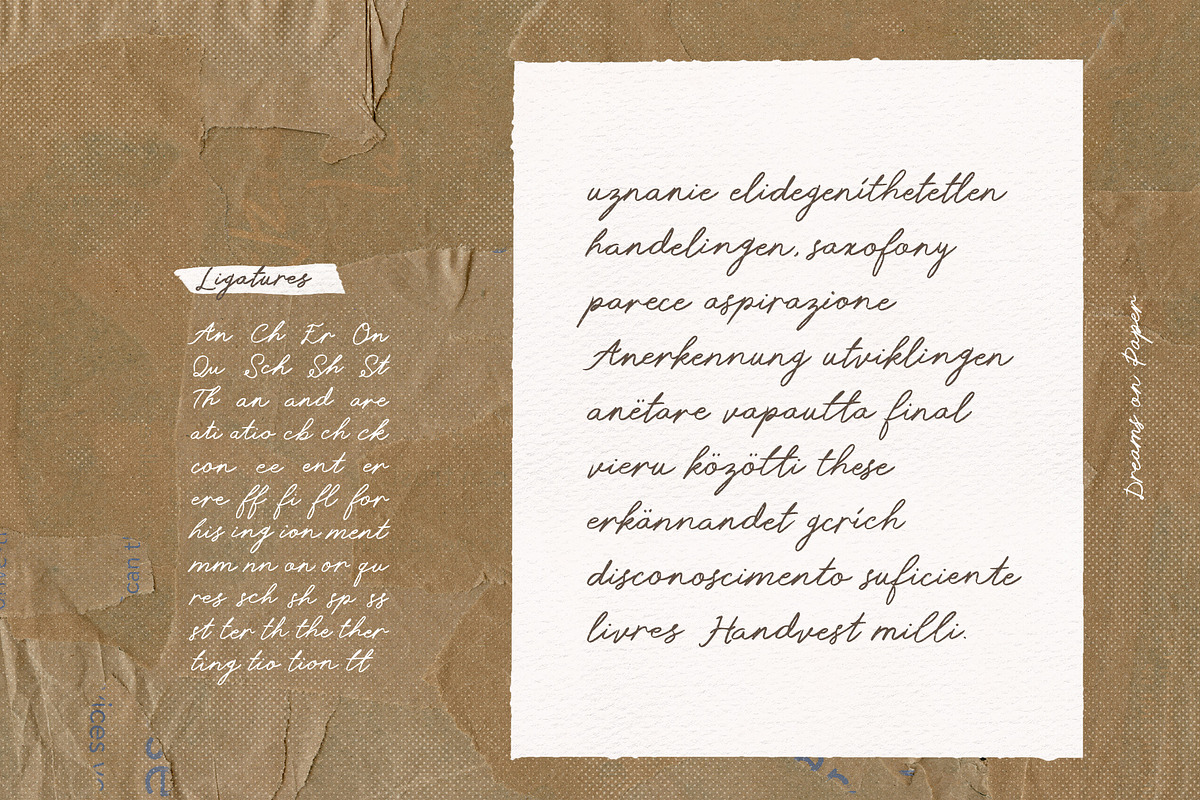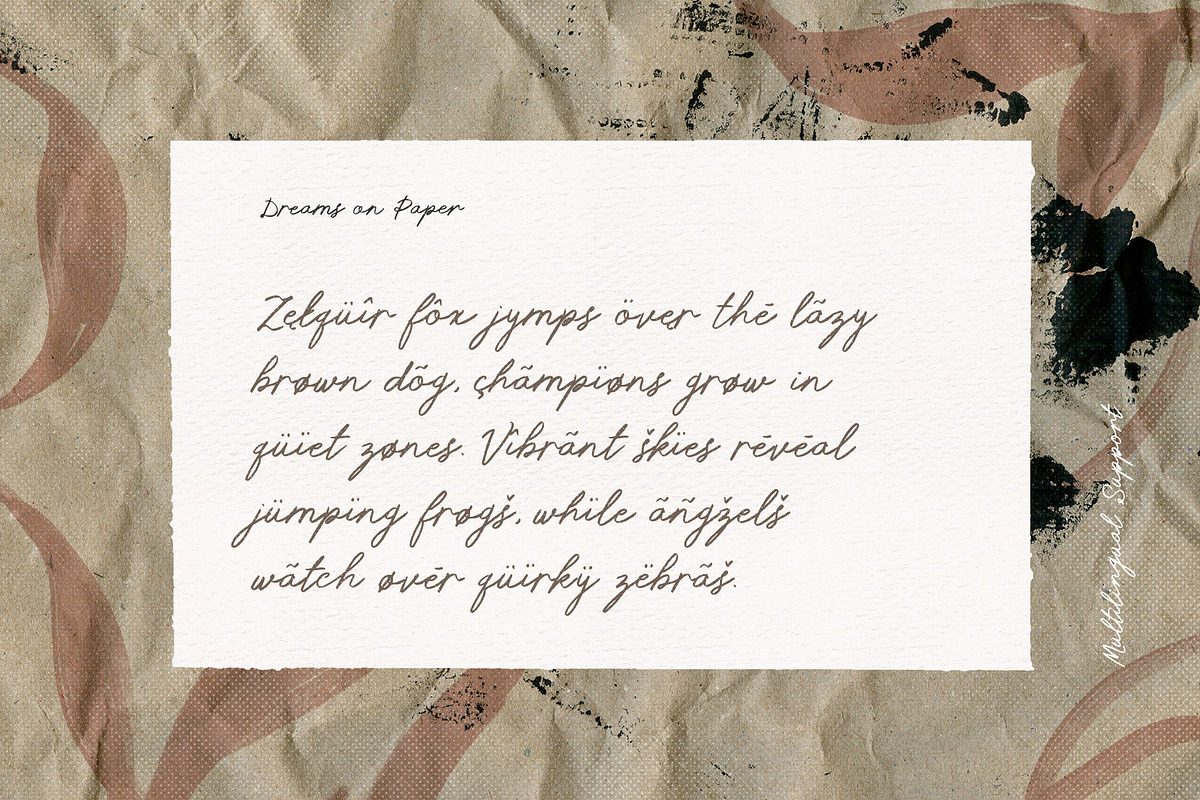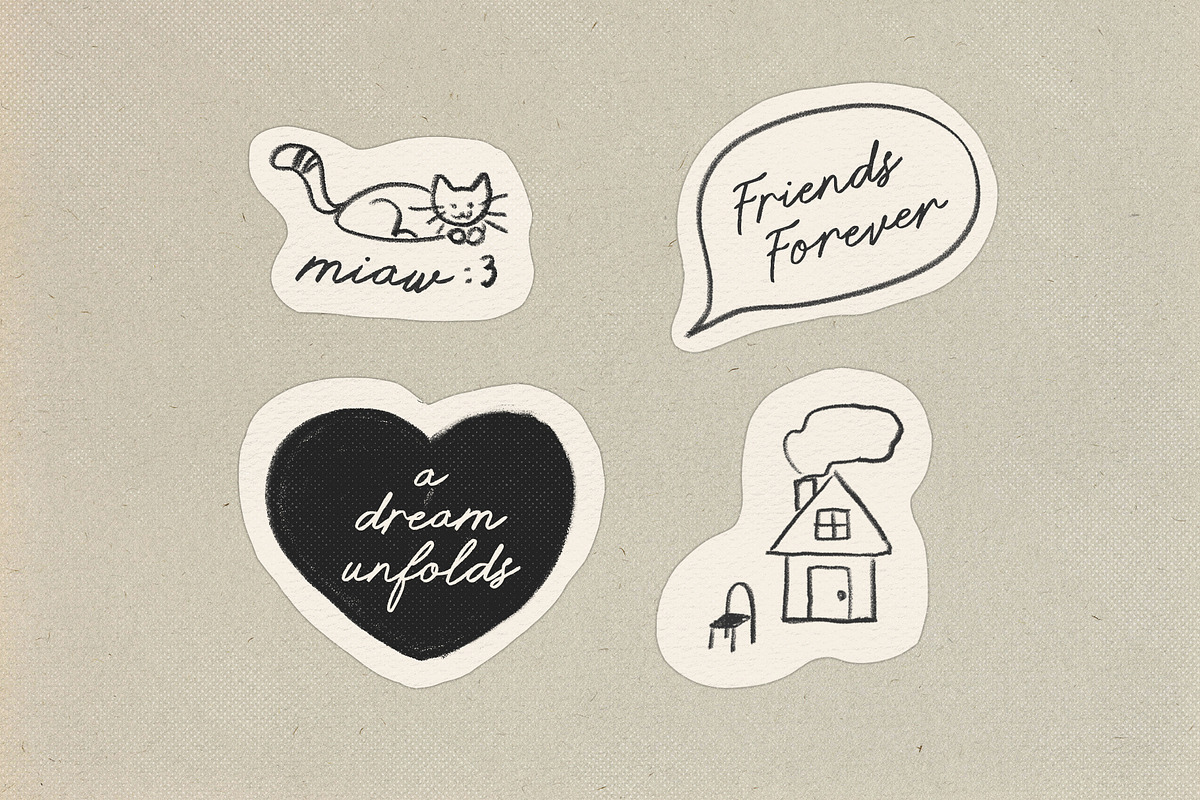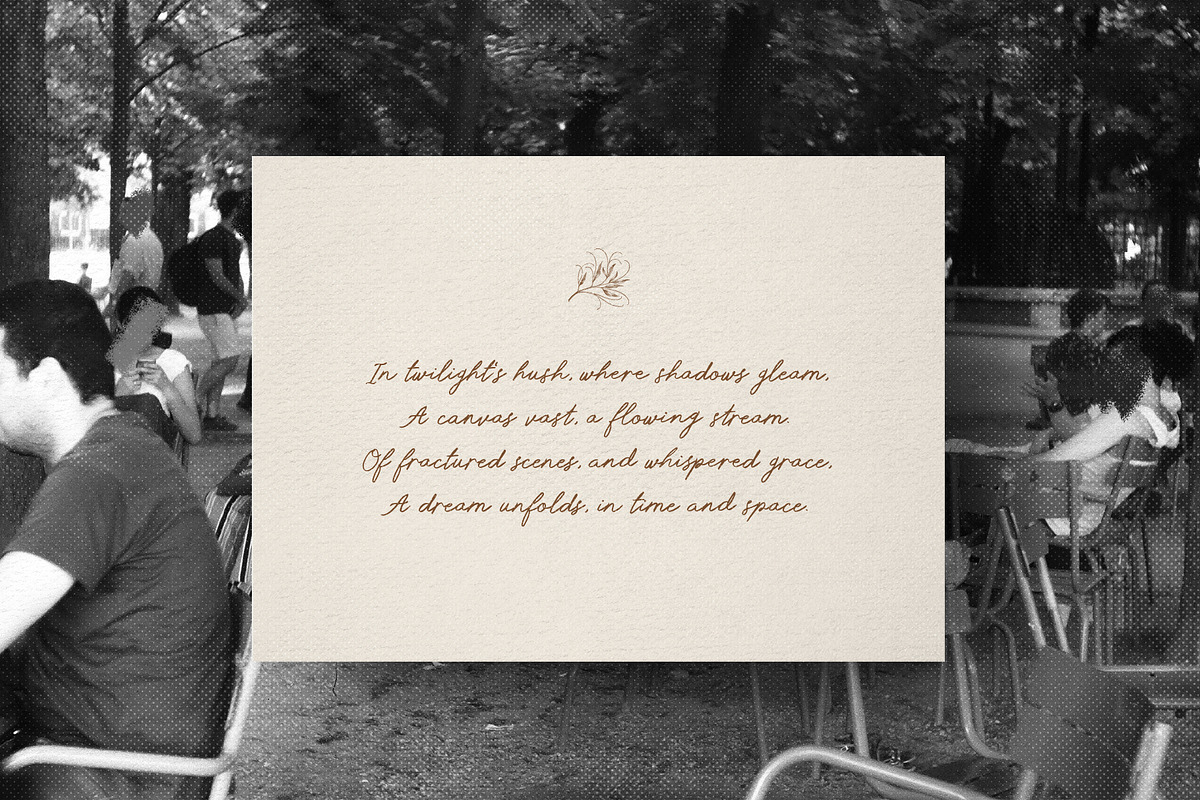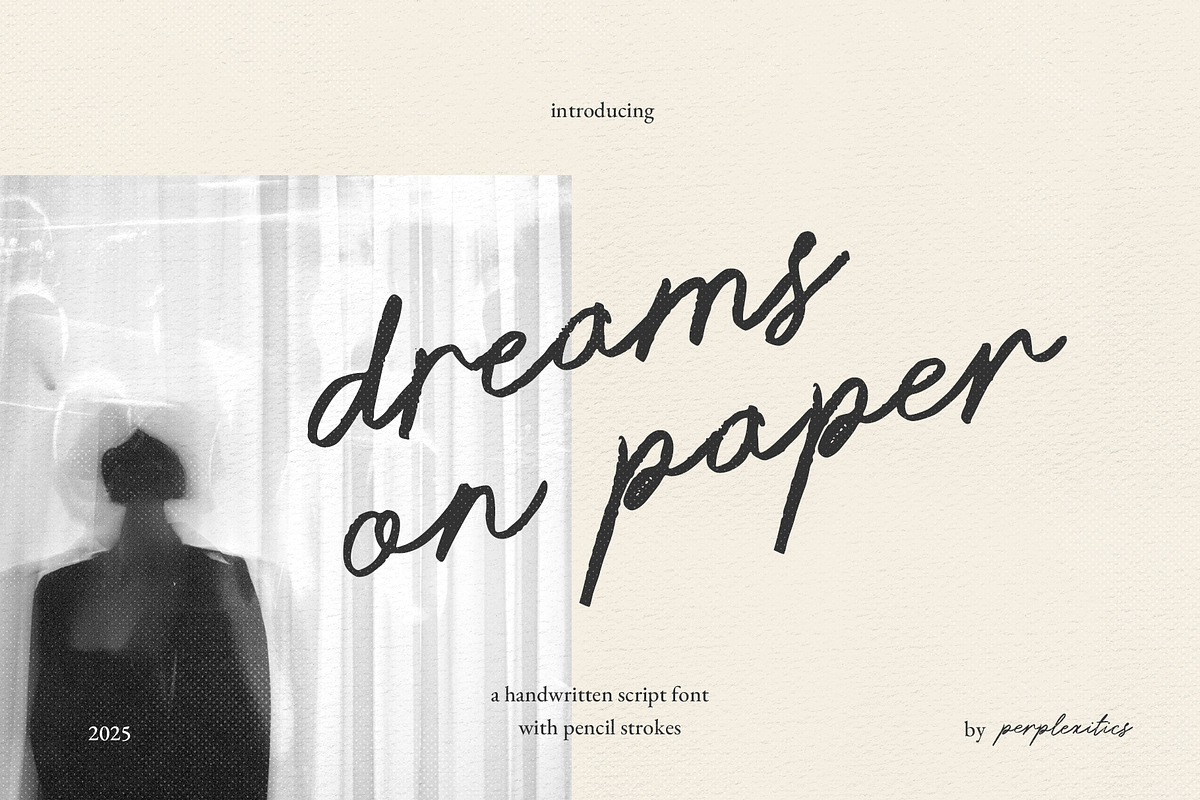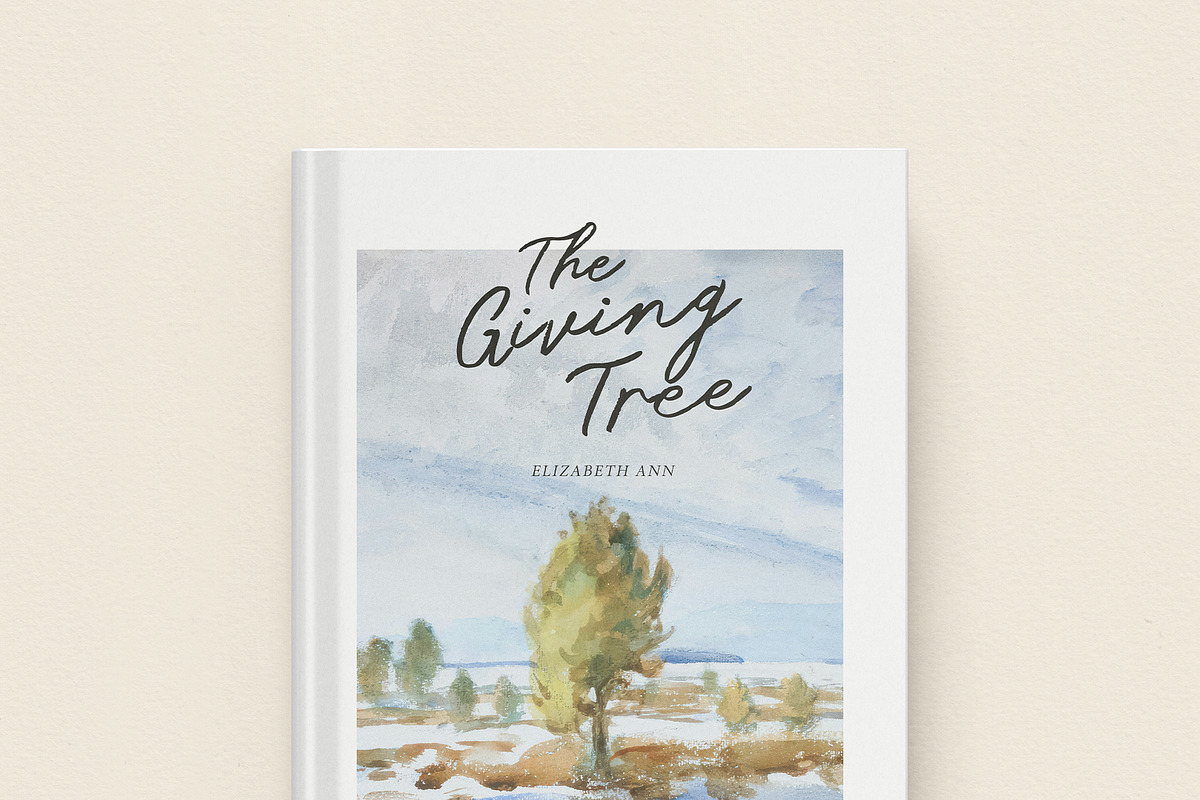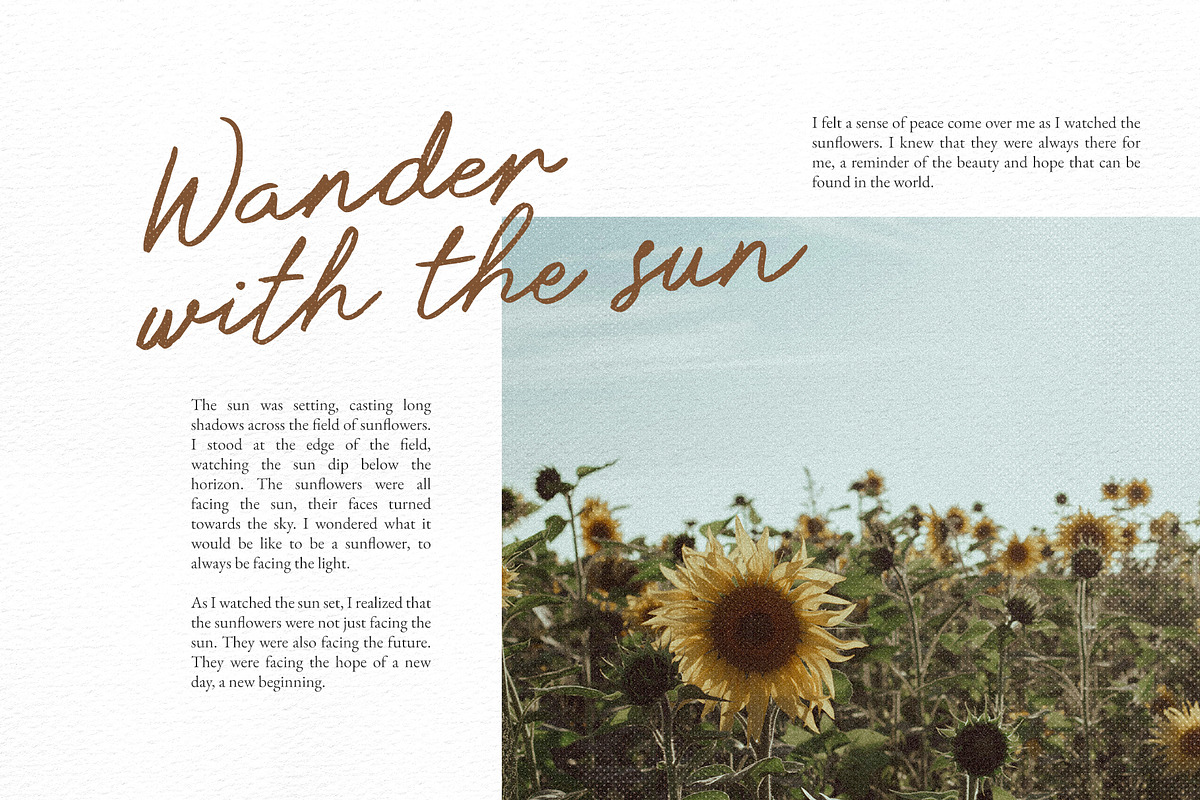
Dreams on Paper Handwritten Pencil
Dreams on Paper Font is a handwritten pencil script font that brings the warmth and authenticity of hand-drawn lettering to your digital and print projects. This font captures the subtle nuances of a real pencil sketch. Perfect for creating a genuine, personal touch in branding, invitations, social media graphics, and more.
Dreams on Paper Font is packed with everything you need, including uppercase and lowercase letters, numbers, and punctuation. Multilingual support.